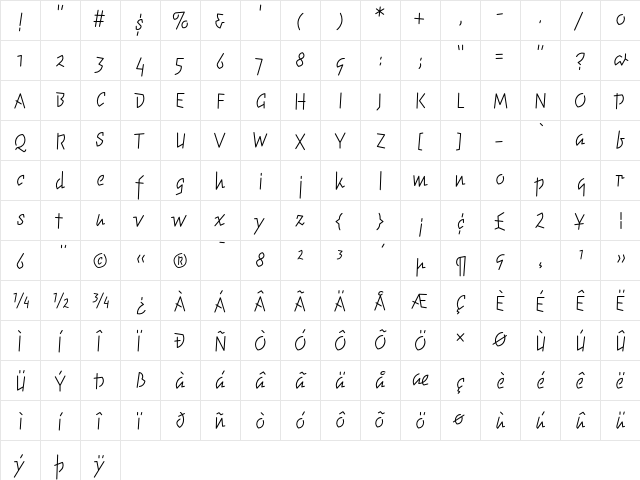
ElektrixLight Regular
Design Context for ElektrixLight Typeface
ElektrixLight takes a measured approach to typography — its balanced proportions and neutral character make it a reliable workhorse for both digital and print work. The delicate stroke weight brings airiness and refinement to layouts.